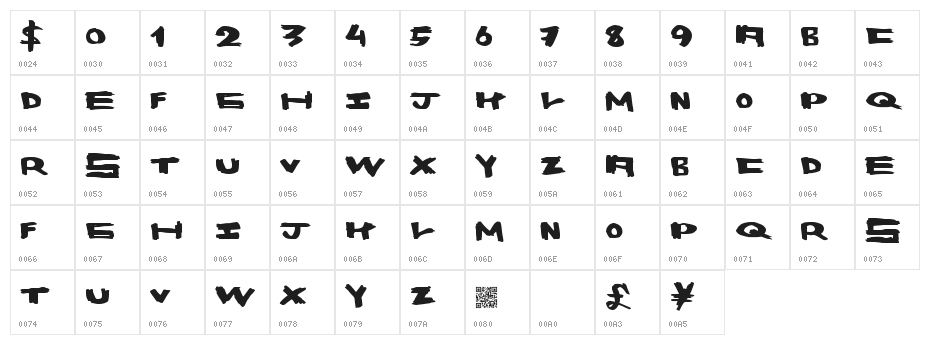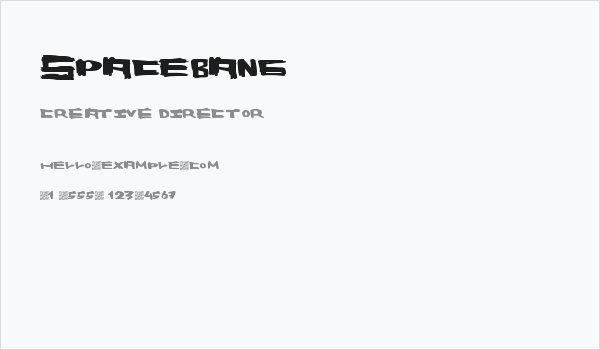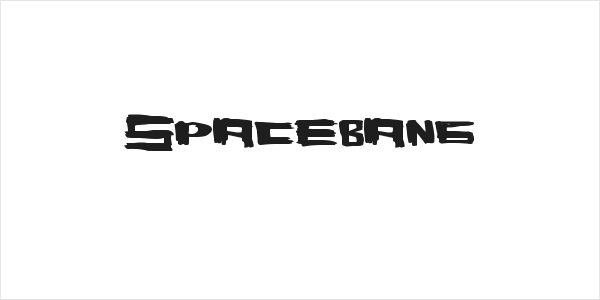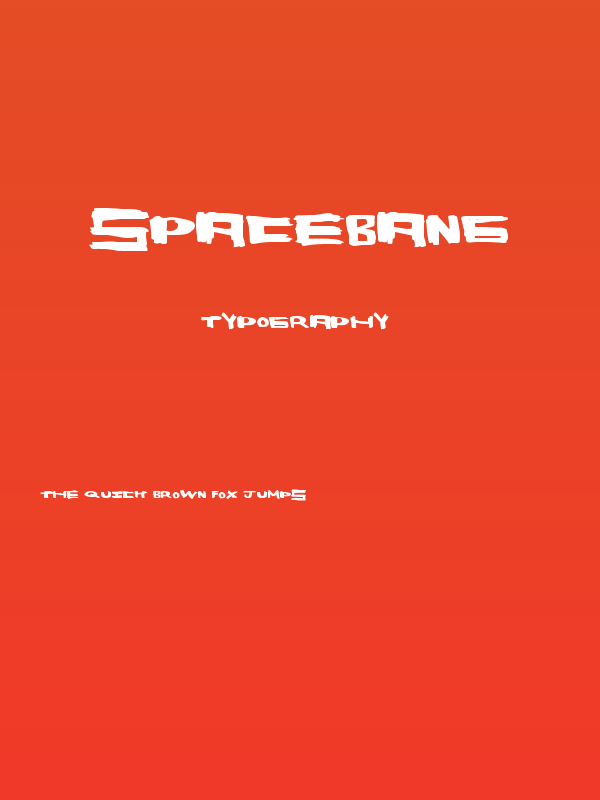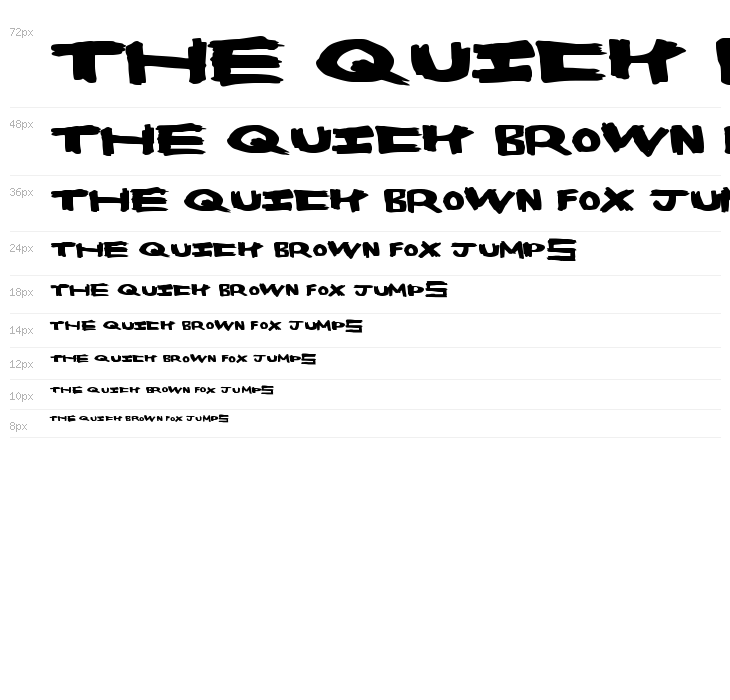
SpaceBang Font
SpaceBang Description
This font features a bold and dynamic style with a hand-drawn appearance. The characters are irregular and slightly distorted, giving them a graffiti-like, urban feel. The uppercase and lowercase letters share a consistent style, with thick strokes and uneven edges that create a sense of movement and energy. The numbers and special characters follow the same aesthetic, ensuring a cohesive look across all elements. This font's unique style makes it stand out, ideal for projects that require a strong visual impact.
| Overall Style | Urban, Graffiti |
| Use Case | Logos, Posters, Headlines |
| Proposed Projects | Ideal for street art designs, music album covers, urban-themed posters, and edgy branding projects. |